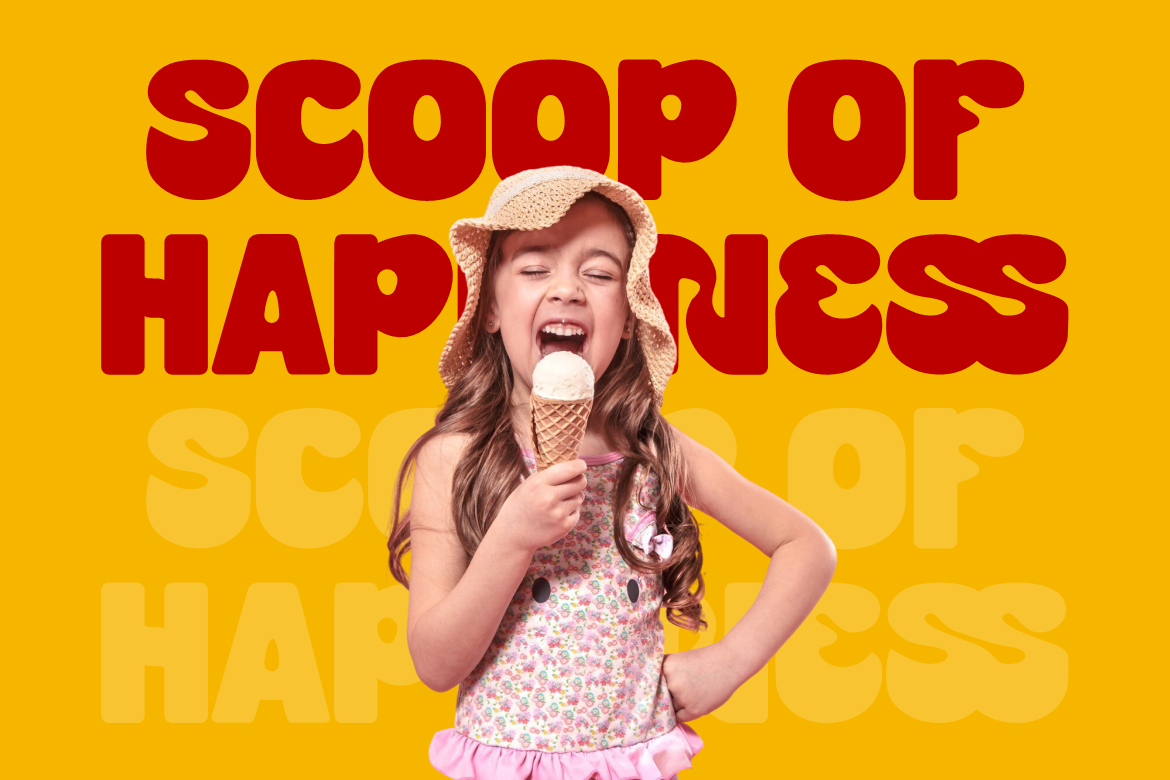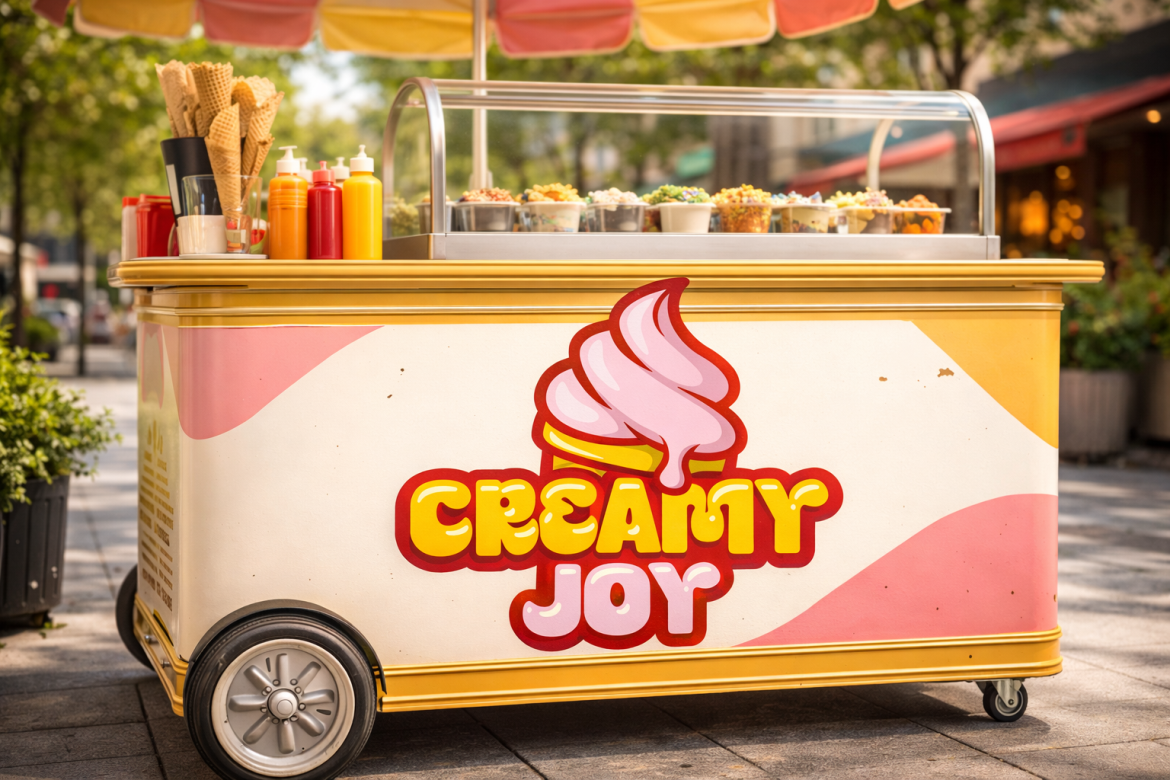
Kravino Bold Display Font features chunky letterforms with rounded corners and generous proportions. The shapes feel soft, cheerful, and immediately approachable without losing visual strength. Slightly irregular curves create playful movement across short names and large headlines. This personality works naturally for ice cream branding, dessert shops, sweet products, candy businesses, and bakery identities. Its substantial forms remain clear across logo design, shop signs, menu titles, product labels, and food packaging. The friendly character also supports family restaurants, snack brands, café concepts, and businesses seeking an energetic identity.
The typeface creates strong recognition for product branding where warmth and fun matter. Ice cream businesses can use it for flavor names, menu boards, packaging, posters, stickers, and advertising. Dessert businesses can extend the same character across cake products, candy packaging, chocolate brands, donut shops, and sweet cafés. Kravino Bold Display Font also suits food businesses beyond desserts, including snack products, bakery goods, drinks, and family dining concepts. Its broad shapes give headlines confident weight, while curved details keep messages inviting. This balance helps logos and promotional graphics communicate personality quickly.
Beyond commercial food branding, the font works for birthday themes, greeting cards, book covers, magazines, and cheerful film titles. It also fits kids products, family events, crafting projects, business cards, promotional posters, and social media campaigns. The rounded construction performs especially well in short phrases where every character needs strong recognition. Designers can build dessert branding systems around logos, package titles, shop graphics, advertising, and seasonal campaigns. The approachable character supports brands that want a sweet, friendly, and memorable voice across physical products and digital communication.